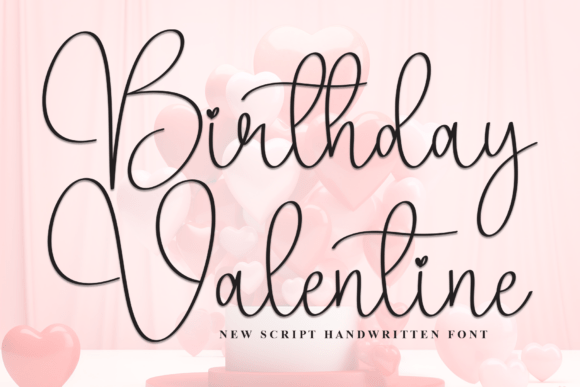
Unleash Your Creativity with the Birthday Valentine Font
Have you ever been scrolling through social media, and a beautiful, hand-drawn font catches your eye? You can’t help but feel a spark of inspiration, and suddenly, your creative juices start flowing. This is exactly what the Birthday Valentine Font is all about – sparking creativity and adding a touch of love to your designs.
This special font is designed to give you an extraordinary experience, making it perfect for a variety of projects, from wall displays to wedding invitations, and even social media post logos. With its latest style letters, you’ll be able to create stunning visuals that will leave a lasting impression. For designers, the Birthday Valentine Font is a valuable asset, offering a unique and romantic touch to any project.
Birthday Valentine Font Key Features
- Font Style: A beautiful, cursive script font perfect for creating romantic and festive designs.
- Character Count: A total of 256 characters, including uppercase and lowercase letters, numbers, and punctuation marks.
- Unique Characteristics: Features swashes, flourishes, and connecting strokes, making it ideal for creating elegant and handwritten-style designs.
Birthday Valentine Font Review
The Birthday Valentine Font is a delightful and playful typeface that exudes warmth and festivity. It’s perfect for creating a celebratory atmosphere, especially during special occasions like birthdays and anniversaries. Here are some aspects where the font truly shines: ✨
- Expressive characters: The font’s design is characterized by elegant swashes and flourishes, making it ideal for titles and headings.
- Whimsical feel: The font’s unique style adds a touch of playfulness and romance, making it suitable for Valentine’s Day and other sentimental occasions.
- Versatility: The font can be used in a variety of contexts, from invitations and greeting cards to social media posts and digital designs.
- Limited language support: The font may not be optimized for languages with non-Latin scripts, which could limit its usability in certain contexts.
- Density: The font’s design can be quite dense, which may make it challenging to read in smaller sizes or with certain text combinations.
Overall, I think the Birthday Valentine Font is a charming and versatile typeface that can add a touch of personality to your designs. While it has some limitations, its unique style and expressiveness make it a great choice for creative projects.
Use the Birthday Valentine Font for romantic and festive designs, such as:
Valentine’s Day cards and invitations
Anniversary and birthday party decorations
Wedding invitations and save-the-dates
Remember to pair the font with complementary colors and graphics to create a cohesive design.
Q: What is the character set of the Birthday Valentine Font?
The Birthday Valentine Font includes a wide range of characters, including uppercase and lowercase letters, numbers, punctuation marks, and special characters. It also includes a set of Valentine’s Day-themed icons and symbols.